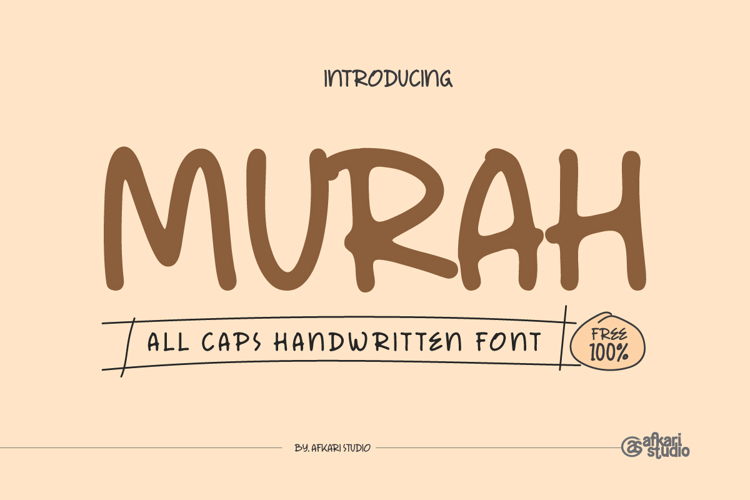
Murah Font
Murah is an elegant Handwritten font designed to infuse modernity and charm into your projects, exuding a delightful and welcoming ambiance. Discover the font's versatility and immerse yourself in its enchanting appeal.